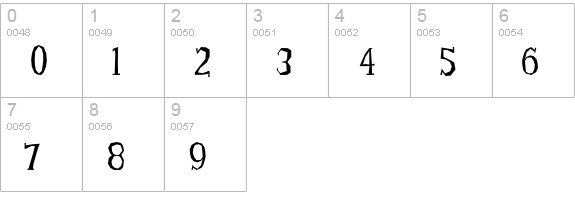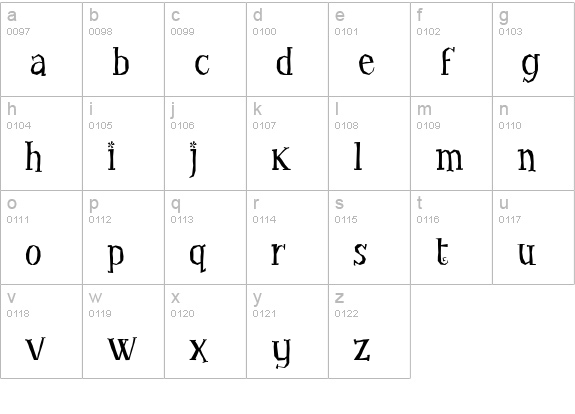
Little Trouble Girl BV Font Details
Little Trouble Girl BV font is a charming and playful typeface that exudes a sense of whimsy and fun. Its quirky design and unique personality make it perfect for adding a touch of creativity to your projects. With its slightly irregular and handwritten look, this font is sure to stand out and make a statement. Best of all, Little Trouble Girl BV font is available for free download at FontsMarket.com. Whether you're working on a design project, creating invitations, or simply looking to spice up your social media posts, this font is a fantastic choice. Embrace the playful spirit of Little Trouble Girl BV font and let your creativity shine!